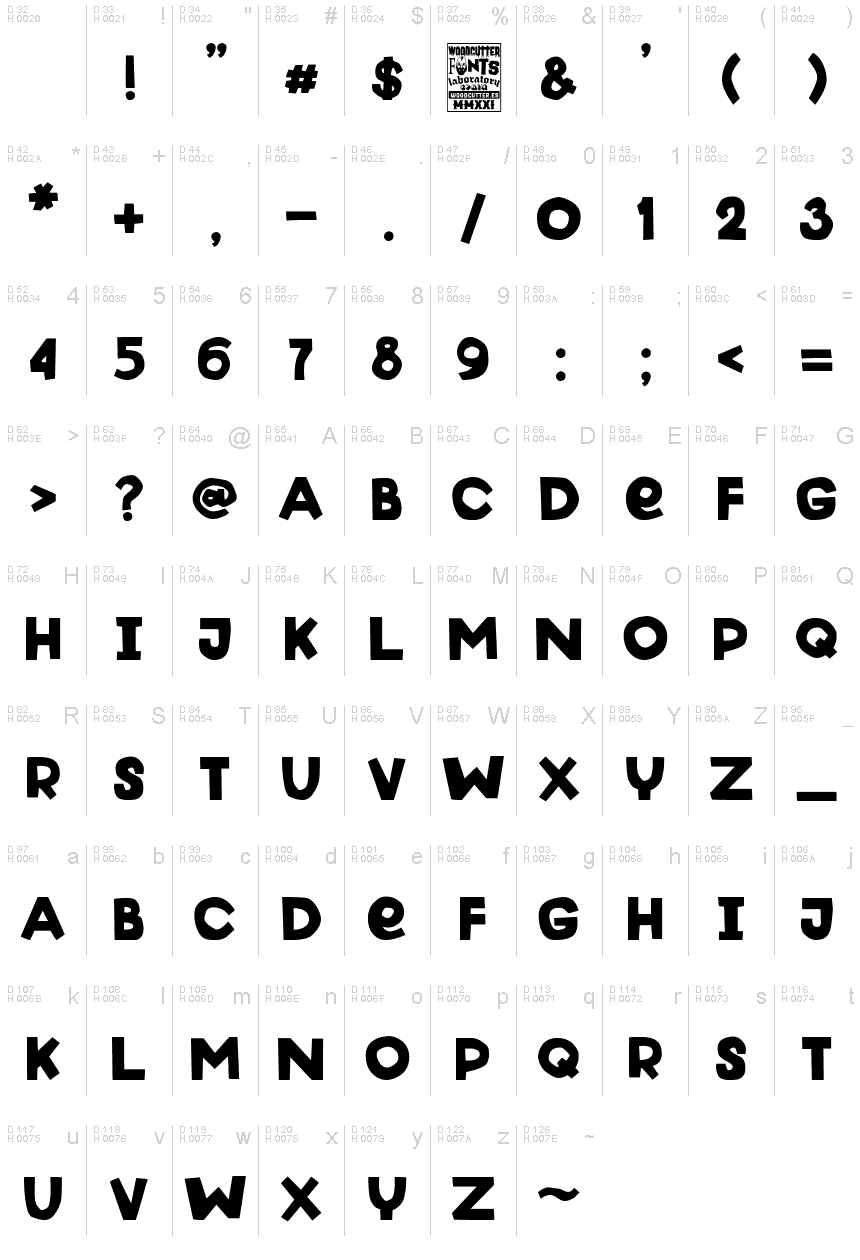
Neo Illustrator
Neo Illustrator by Woodcutter Manero is a bold and playful display font that adds a touch of whimsy to any project. With its semi-expanded width, this cartoon-inspired typeface is perfect for creating eye-catching headlines, posters, and logos. Its bold weight makes it suitable for projects that require a strong and confident presence, such as branding and advertising campaigns. Use Neo Illustrator to bring your designs to life with its fun and dynamic personality. This font is also great for children's book covers, comic strips, and packaging design where you want to convey a sense of joy and lightheartedness.